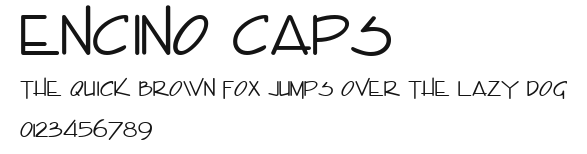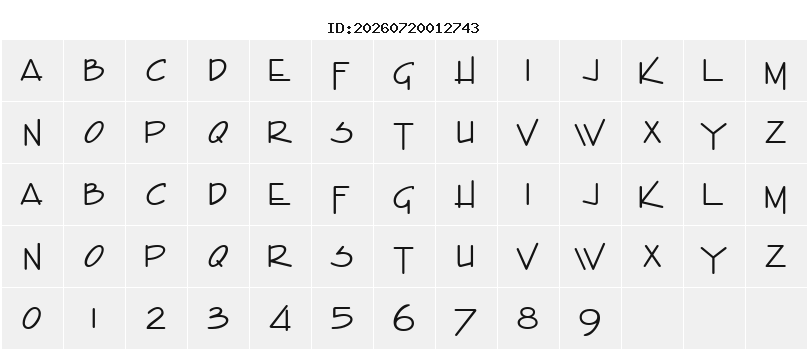
• Font Name: Encino Caps
About Encino Caps.ttf
Encino Caps.ttf is a modern, elegant sans-serif font designed for ultimate readability and visual harmony. Perfect for branding, headlines, web design, and print materials.